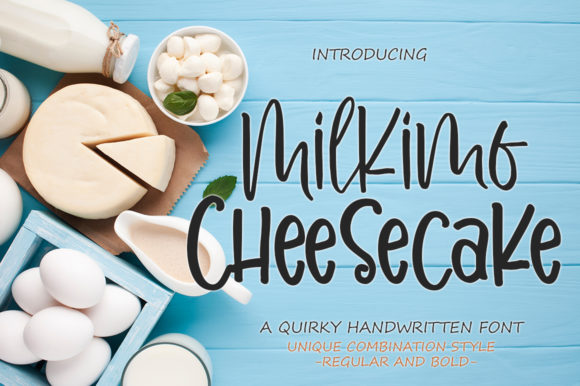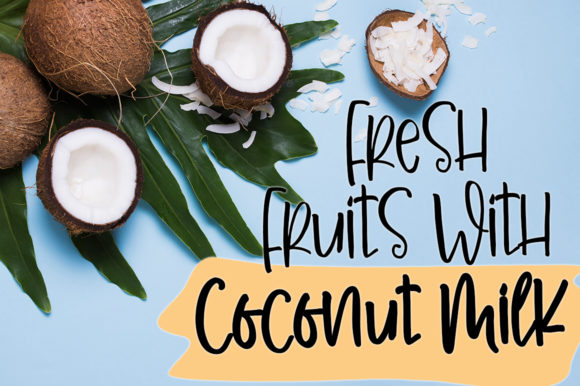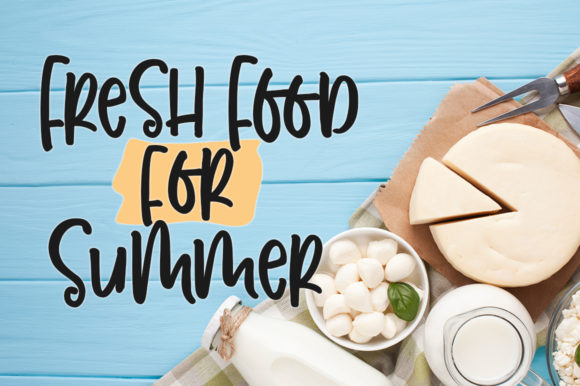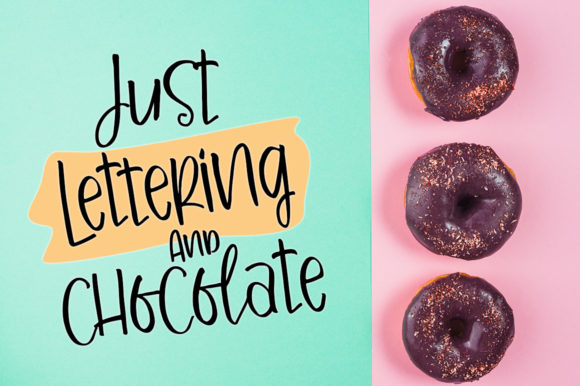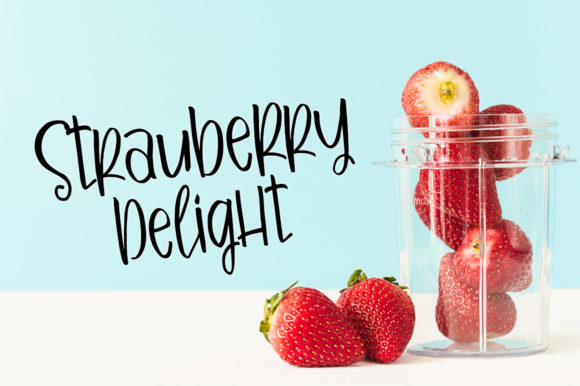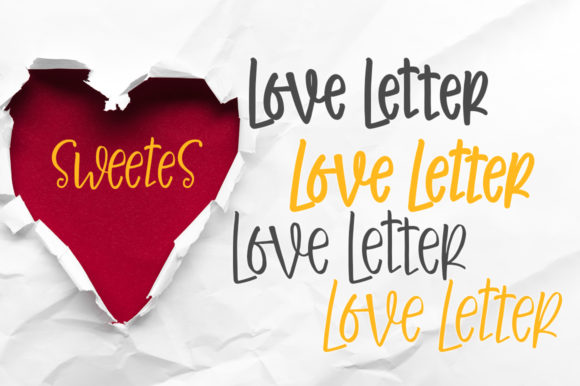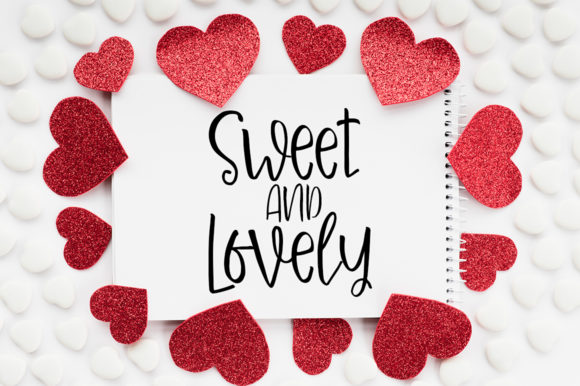
Milkimo Cheesecake Font
About Milkimo Cheesecake Font
Milkimo Cheesecake is a sweet and modern handwritten font. Its casual charm makes it appear wonderfully down-to-earth, readable and, ultimately, incredibly versatile. Milkimo Cheesecake will look outstanding in any context, whether it’s being used on busy backgrounds or as a standalone headline!